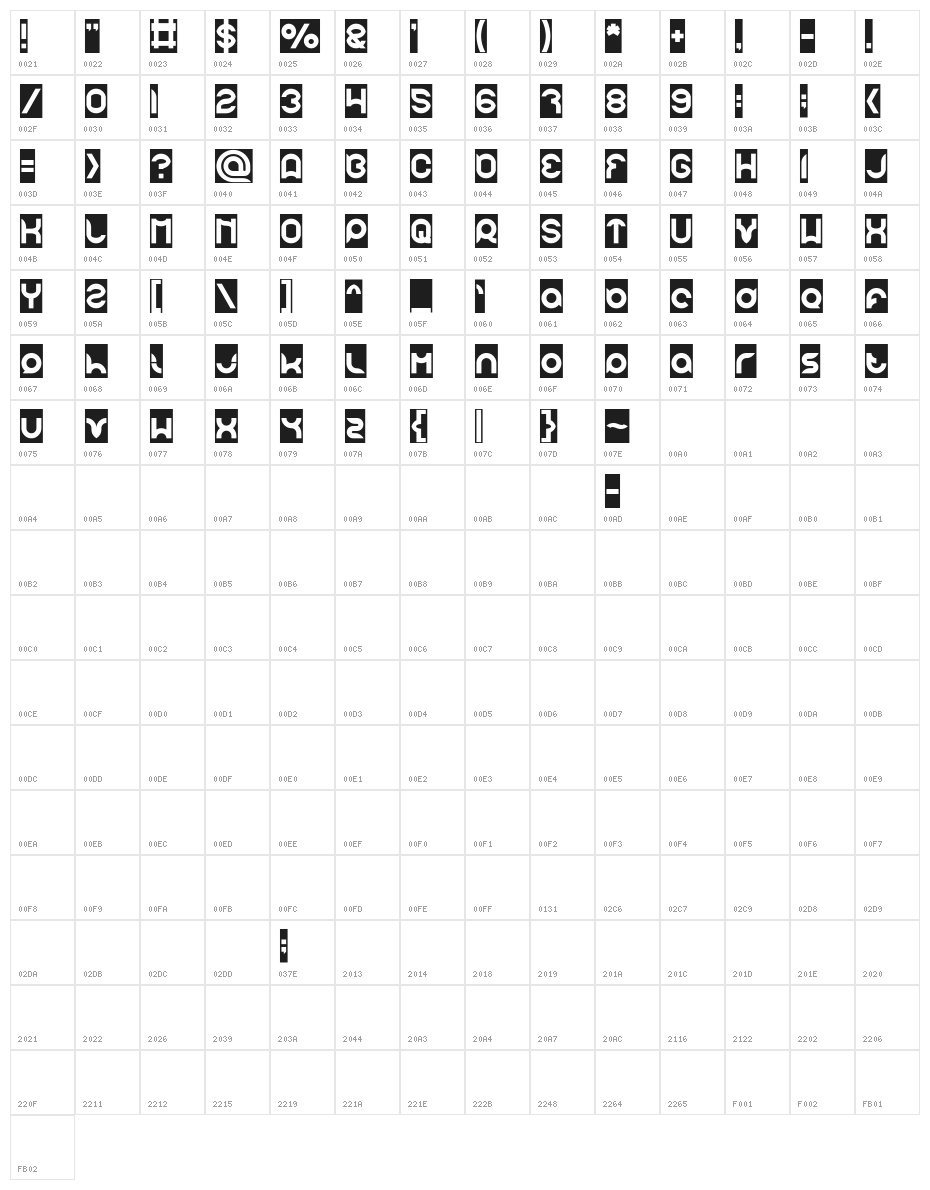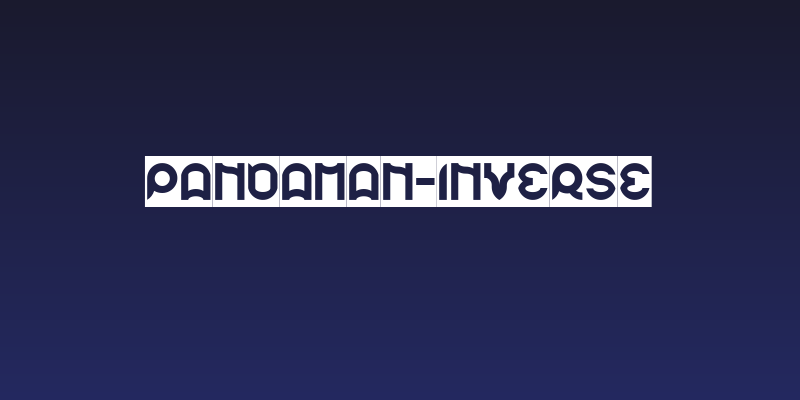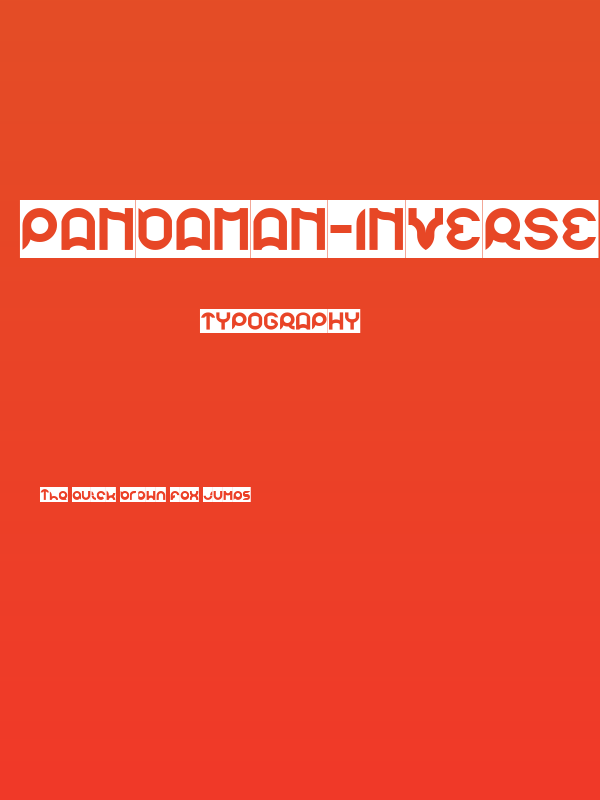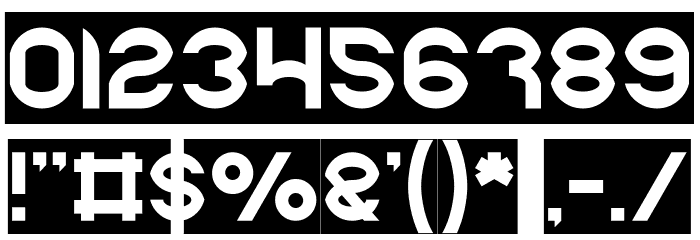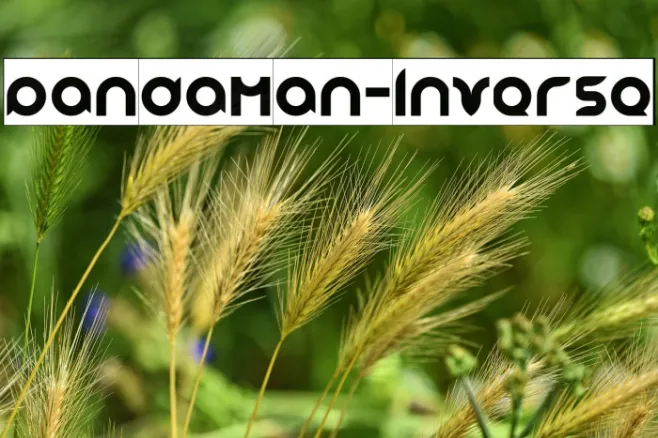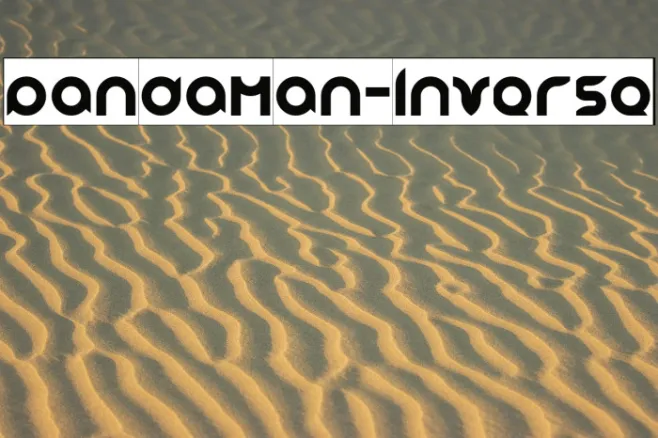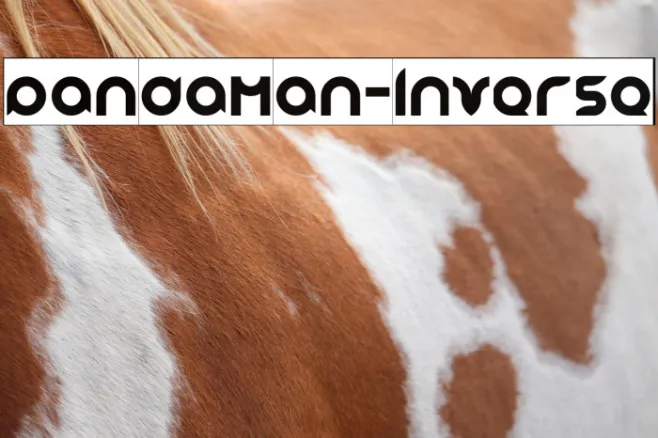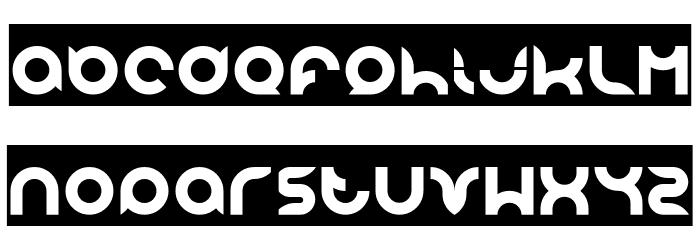
pandaman-Inverse Font
pandaman-Inverse Description
This font features a bold and modern design with a unique inverse style, where the negative space plays a significant role in defining each character. The letters are constructed with thick strokes and rounded edges, creating a playful yet structured appearance. The uppercase and lowercase letters maintain a consistent style, with a slight variation in size and form. Numbers and special characters follow the same design principles, ensuring a cohesive look across all elements. The font's distinct style makes it stand out, ideal for projects that require a strong visual impact.